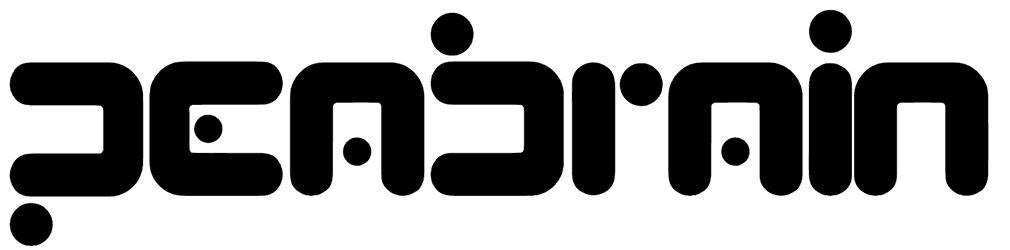
PeaBrain Font
Having an all-caps Y2K font such as PeaBrain would be a real necessity for any graphic designer who craves to create high-end visual content like posters, web pages, magazines, flyers, or brochures.
Aside from the lack of numbers, it can bring a feeling of jauntiness, eeriness, or exoticism to all of your artwork. Needless to say that due to its polygonal and unique style, it doesn’t have good readability.